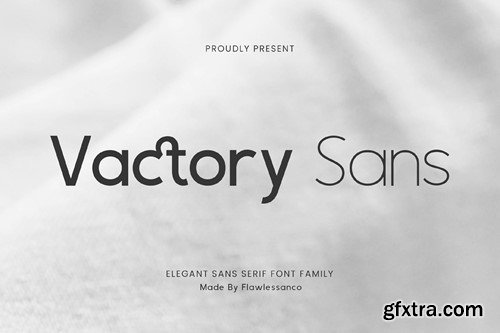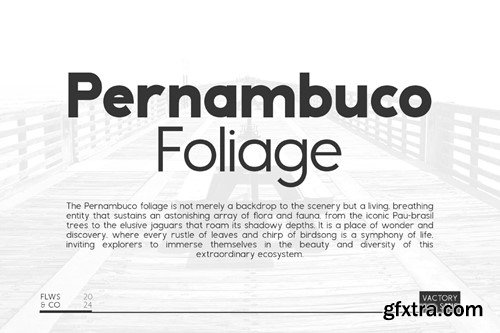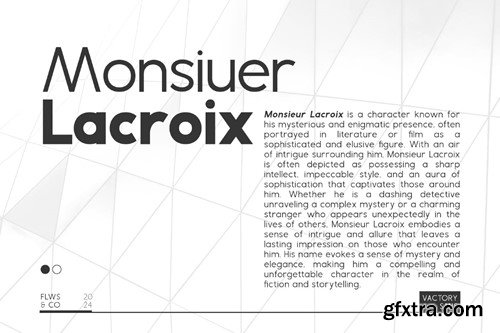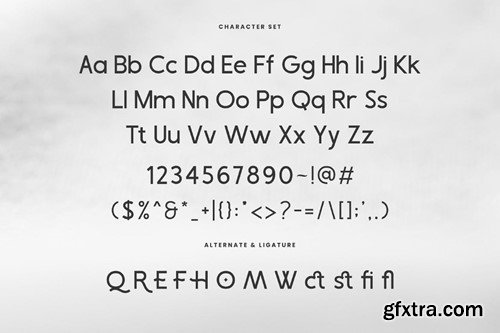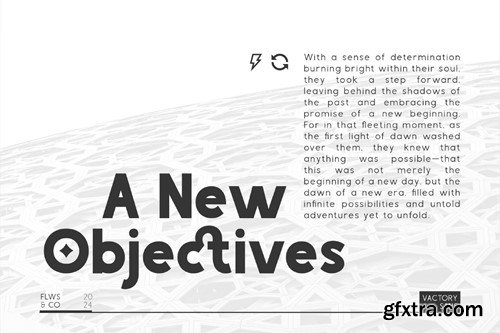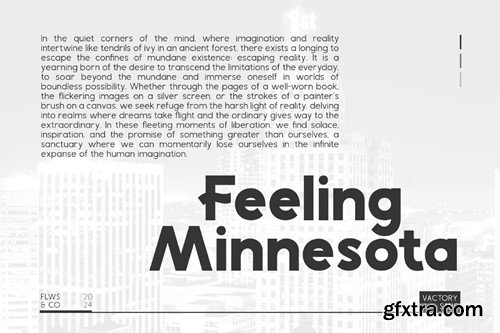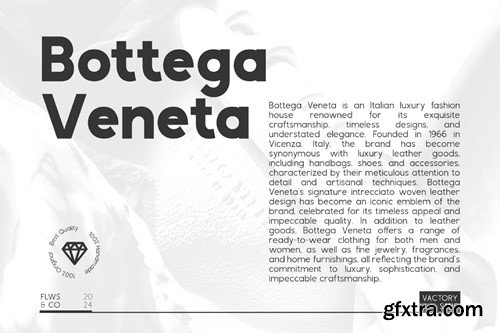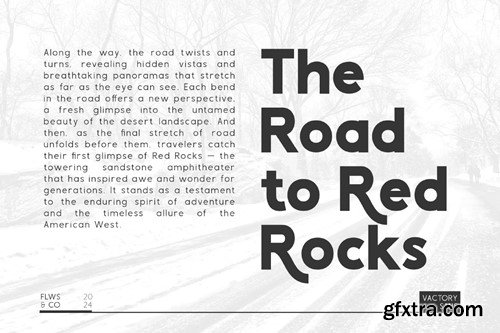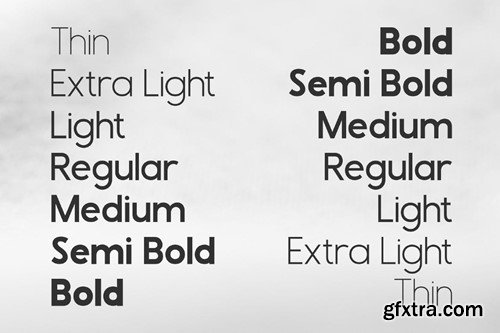
Vactory Sans - 精致无衬线字体 R5YQ6VL
Vactory Sans - Elegant Sans Serif Font, Family Font, Sans Serif Family, Sans Serif Font, Magazine Font, News Paper Font, Modern Font, Elegant Font, Canva Font, Cricut Font, Procreate Font, Branding Font, Logo Font. Introducing Vactory Sans, an elegant sans serif font family that exudes sophistication and style. With its clean lines, geometric shapes, and subtle stroke variations, Vactory Sans is perfect for creating a modern and refined look for your branding, web design, and editorial projects. Vactory Sans consists of various weights ranging from thin to bold styles, including thin, extra light, light, regular, medium, semi-bold, and bold. Keywords: Font Family, Sans Serif Font, Family Sans Serif Included: Features : Multilingual Uppercase alphabet A-Z Lowercase alphabet a-z Numbers 0-9 Some punctuation NOTE: For all the characters are also available, accessible in the Adobe Illustrator Glyphs Panel, or in Adobe Photoshop Character Open Type Panel. If you need help, just write me! Thanks so much for checking out my shop! ----------------------------------------------- HOW TO USE FONT : (connected letters, swirls, heart, swashes, diamond) for the first, install the .otf file and open fontbook/character map, find the font and you can copy and paste the heart letters from fontbook/character map to your text. Thanks, Flawless and co.